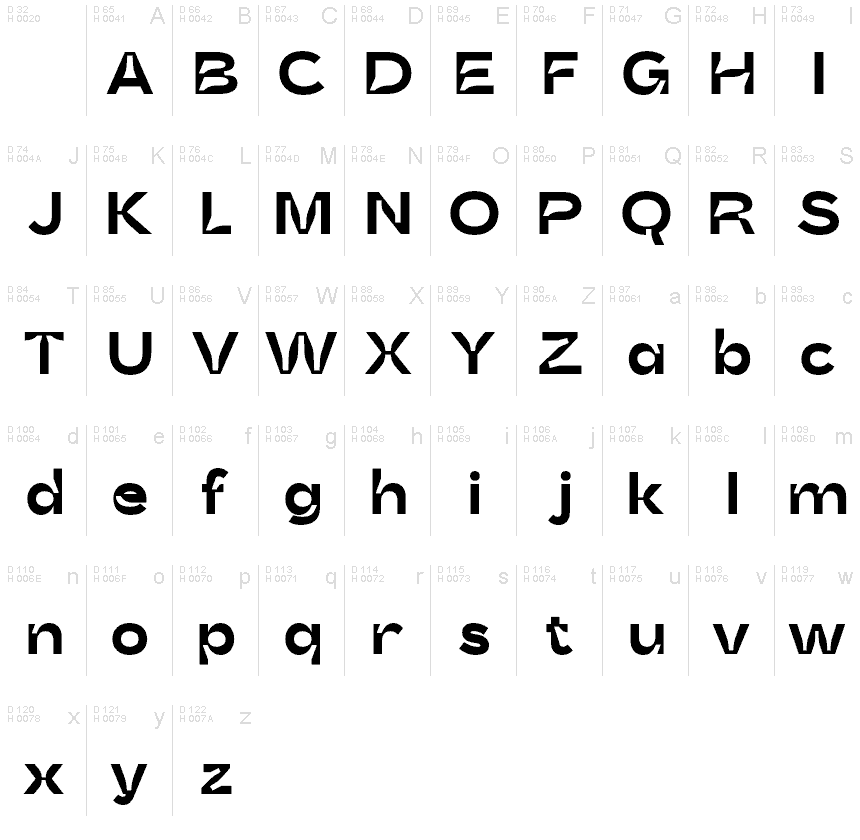
CS Marley Demo Regular
CS Marley font by Craft Supply Co is a splendid free modern grotesque display font with expanded characters. Although each character carries a heavy load, they look clean with a simple geometric structure and fine detailing. For the most part, all characters possess an upright stance that combines with the wide opening for simplified readability.
The author of this typeface suggests it for use on posters, flyers, magazines, newspapers backgrounds as well as presentations. CS Marley can also help get attractive social media posts and accounts done in addition to mobile applications/websites such as Android iOs apps and other website design works.